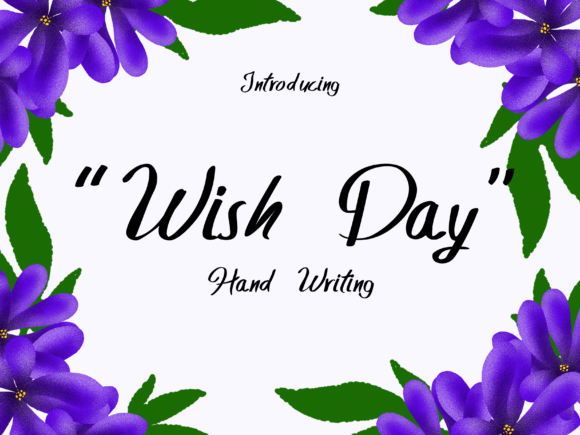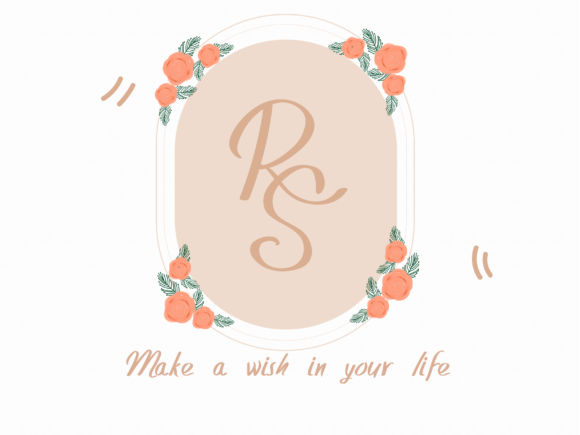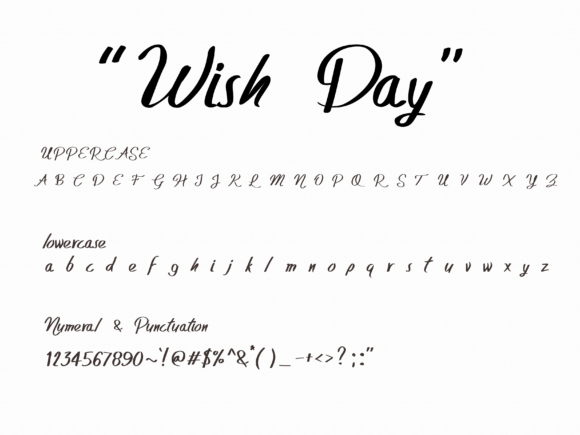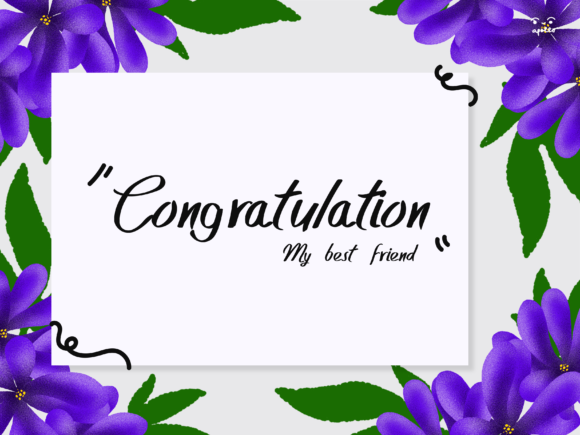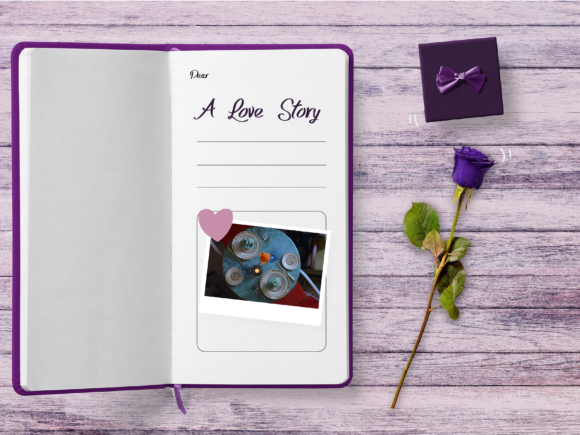
Wish Day Font
About Wish Day Font
Wish Day is a sweet and gorgeous handwritten font with a special touch. It maintains its cuteness and feels luxurious and elegant. Wish Day’s stylish alternates and ligatures make this font the perfect match for any project.